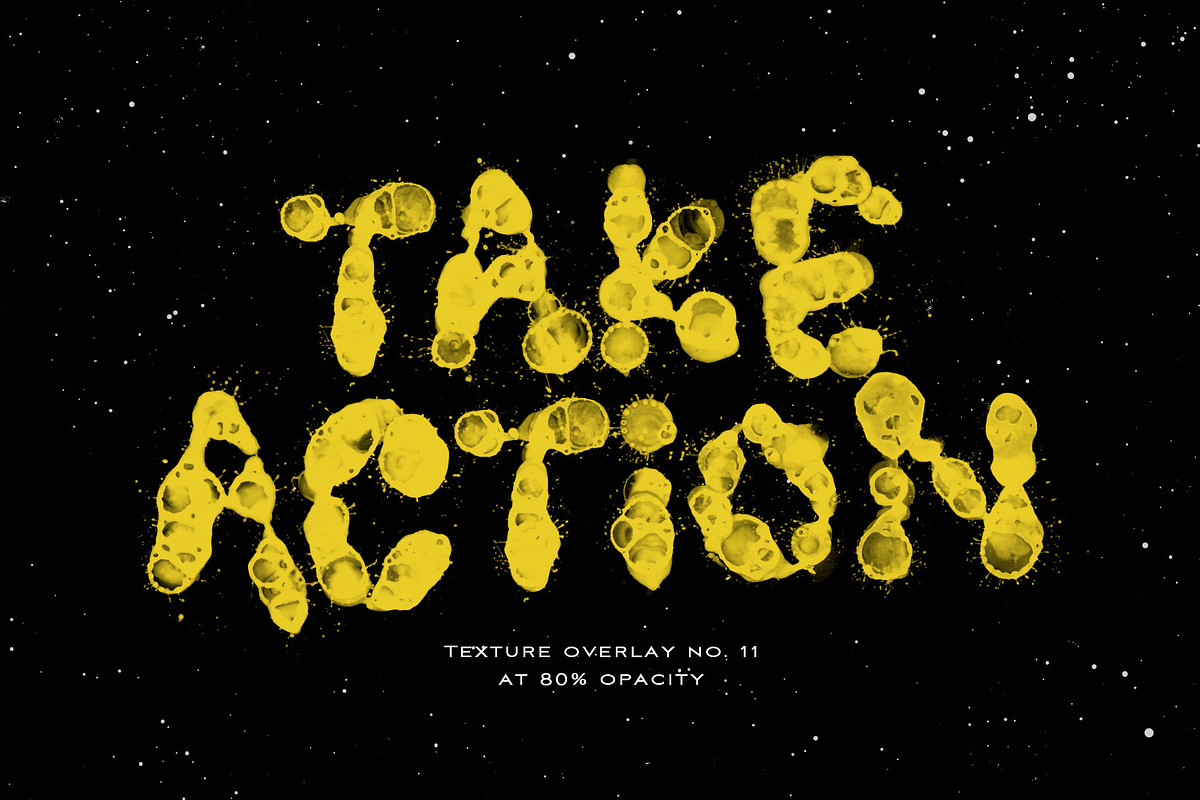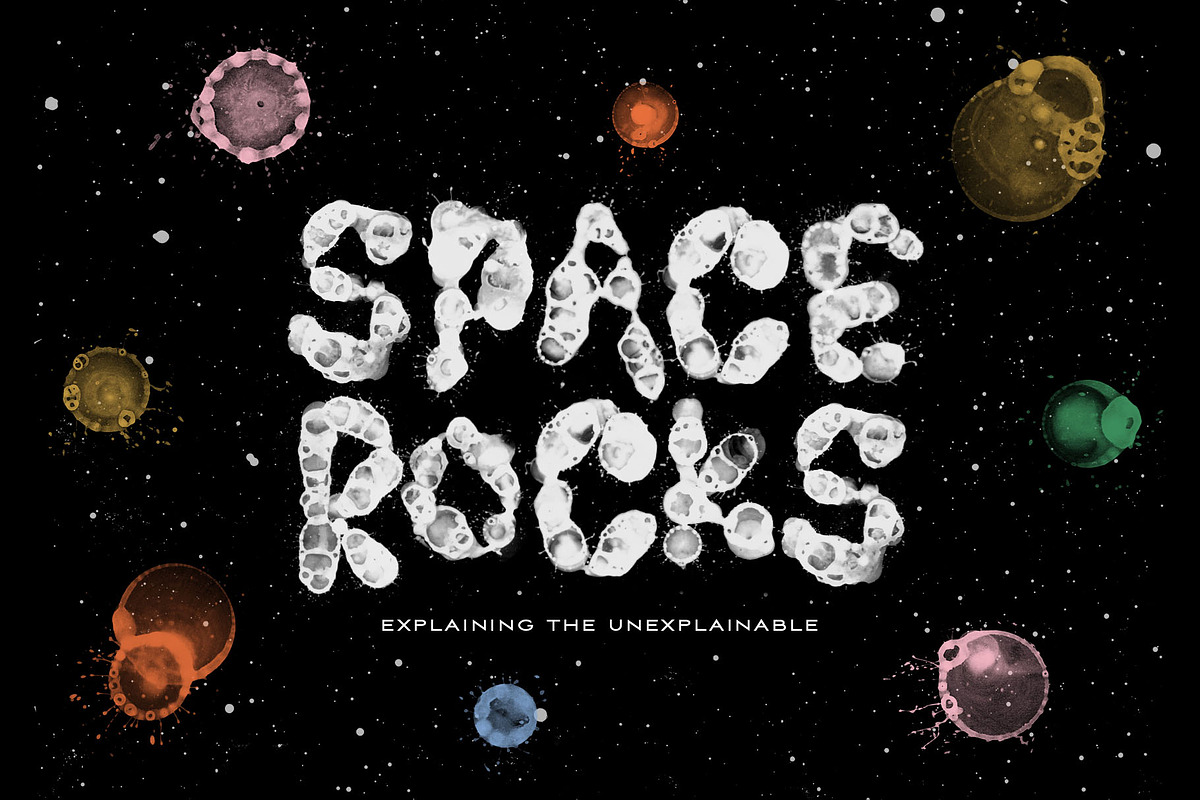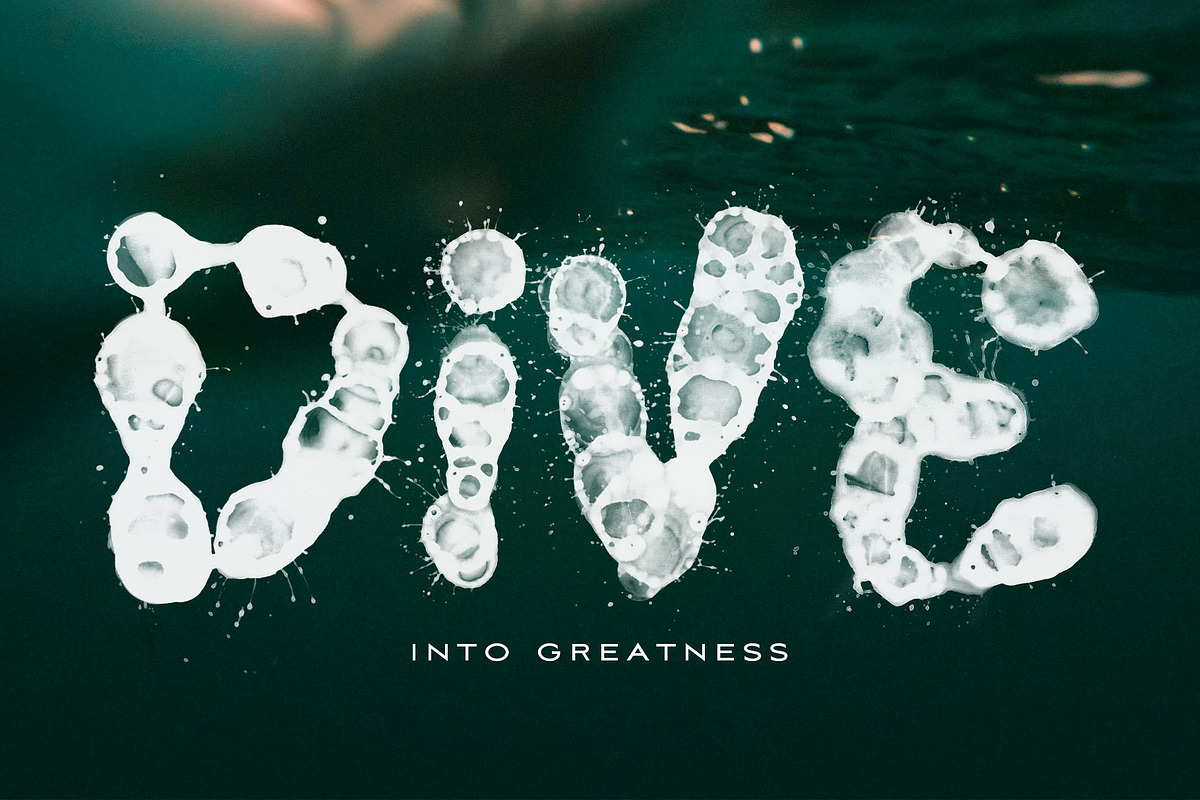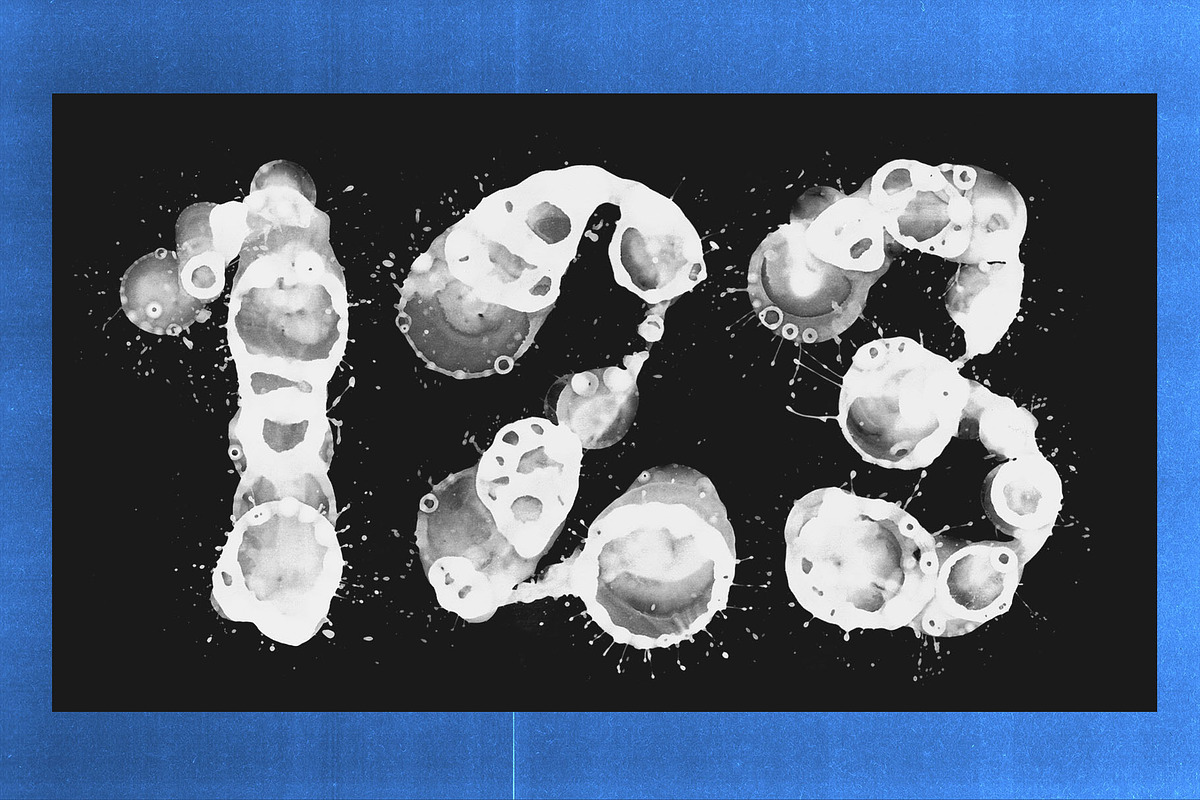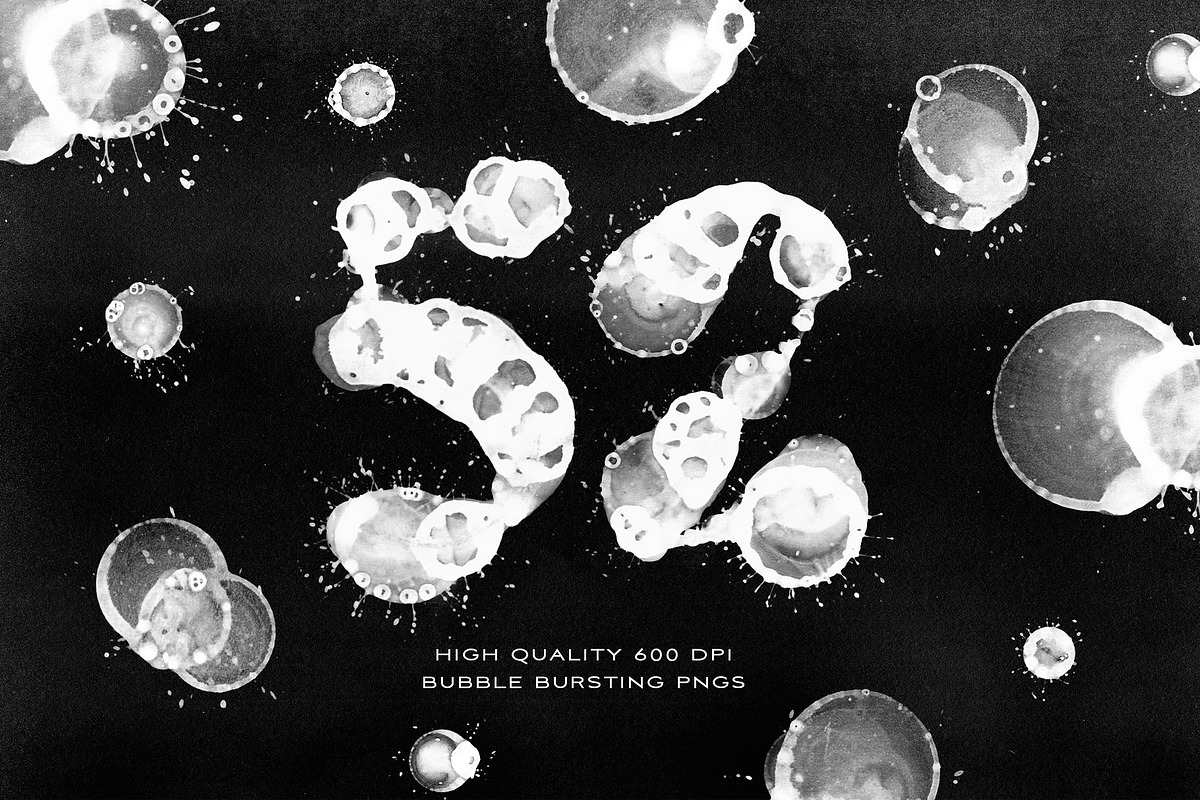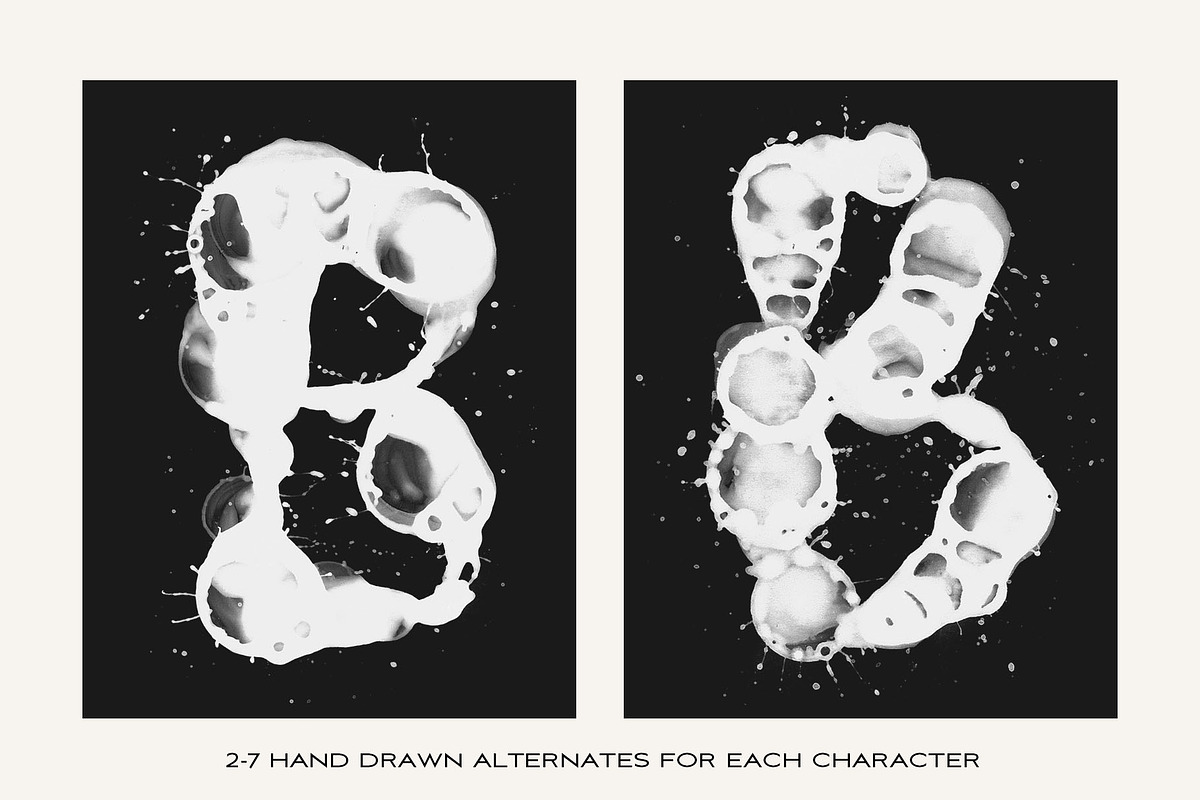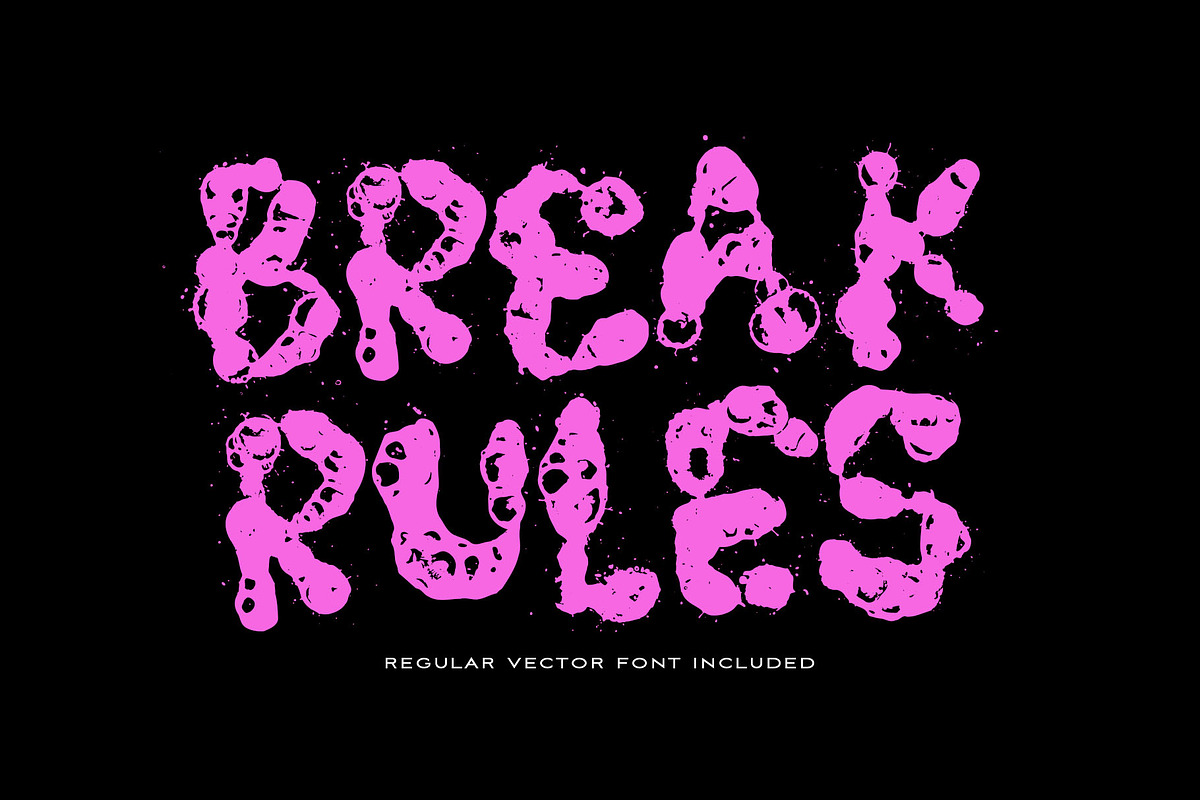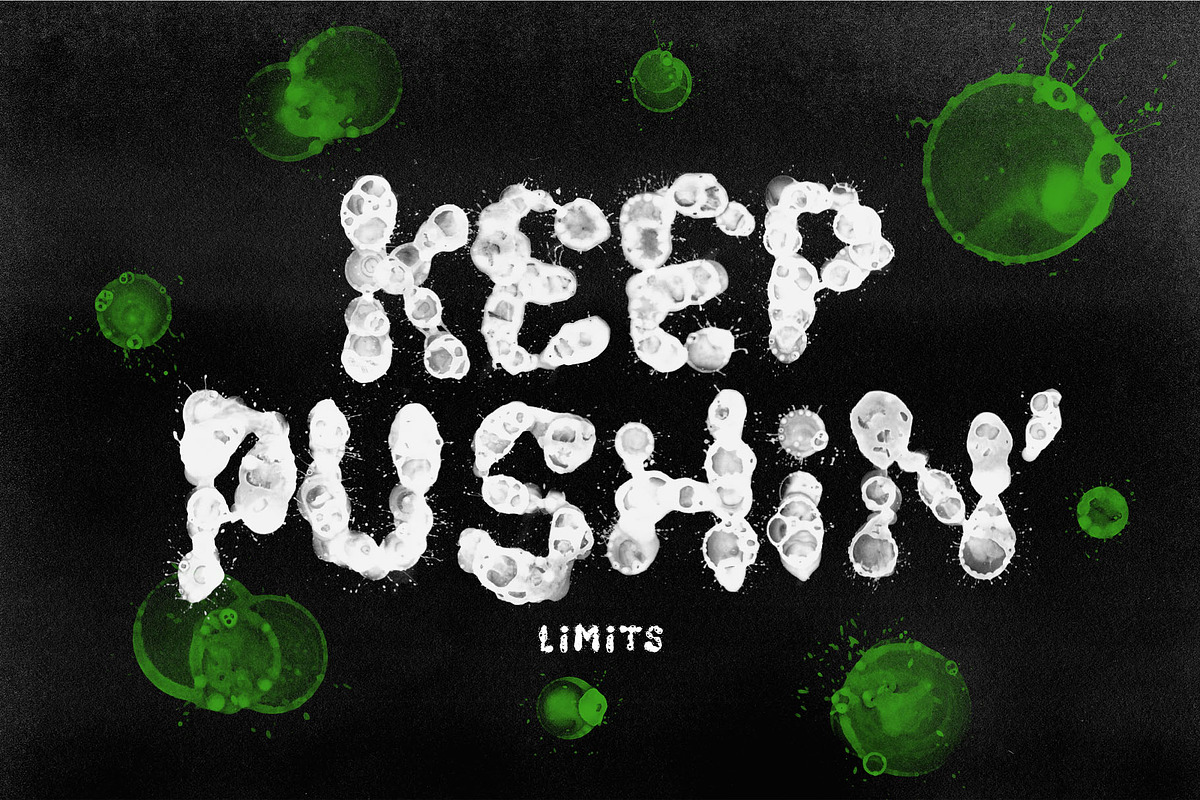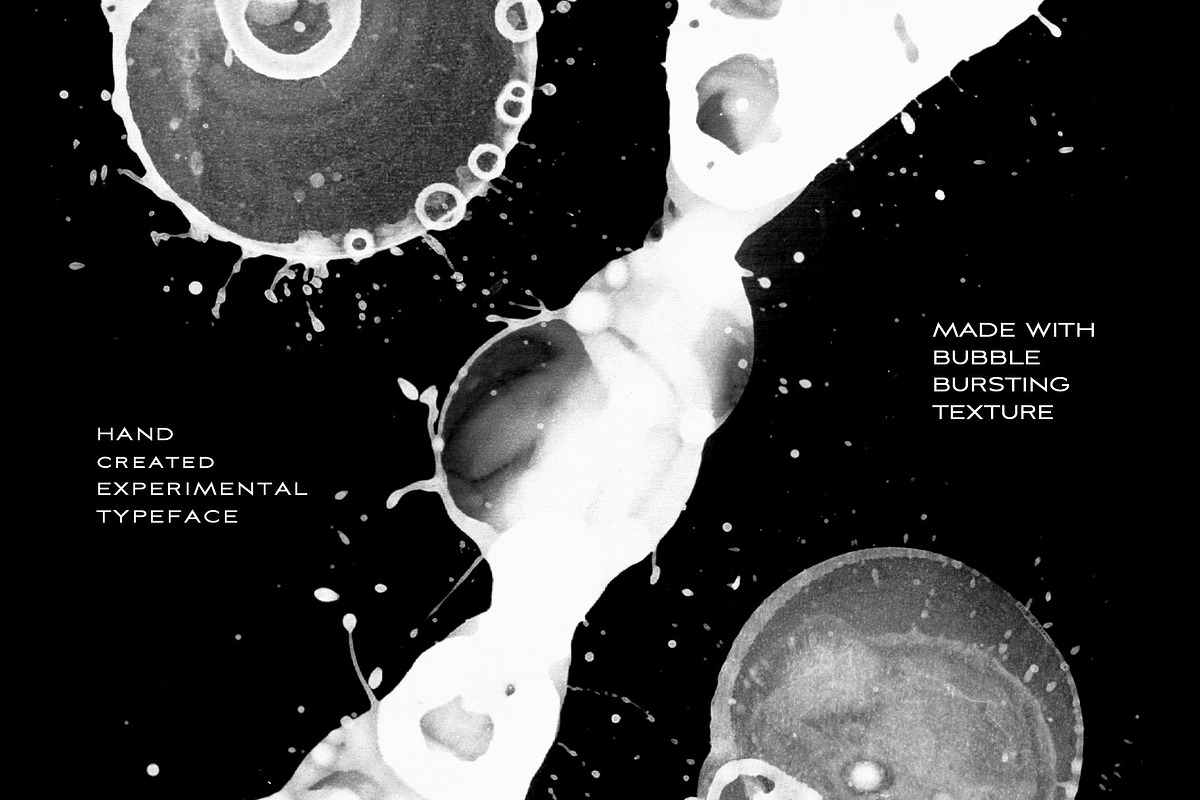
BLASTER Typeface
Introducing BLASTER Typeface! A new experimental hand created typeface made with bubble bursting texture. This sci-fi inspired typeface is the perfect feature in all your paranormal projects.
Rich in stylistic alternates as each character in this font includes 2-7 alternates.
Every character was hand painted with an artliner to create the bubbles, the bubbles are then left to burst on their own creating this one of a kind texture. It's grungy, rebellious and full of action.